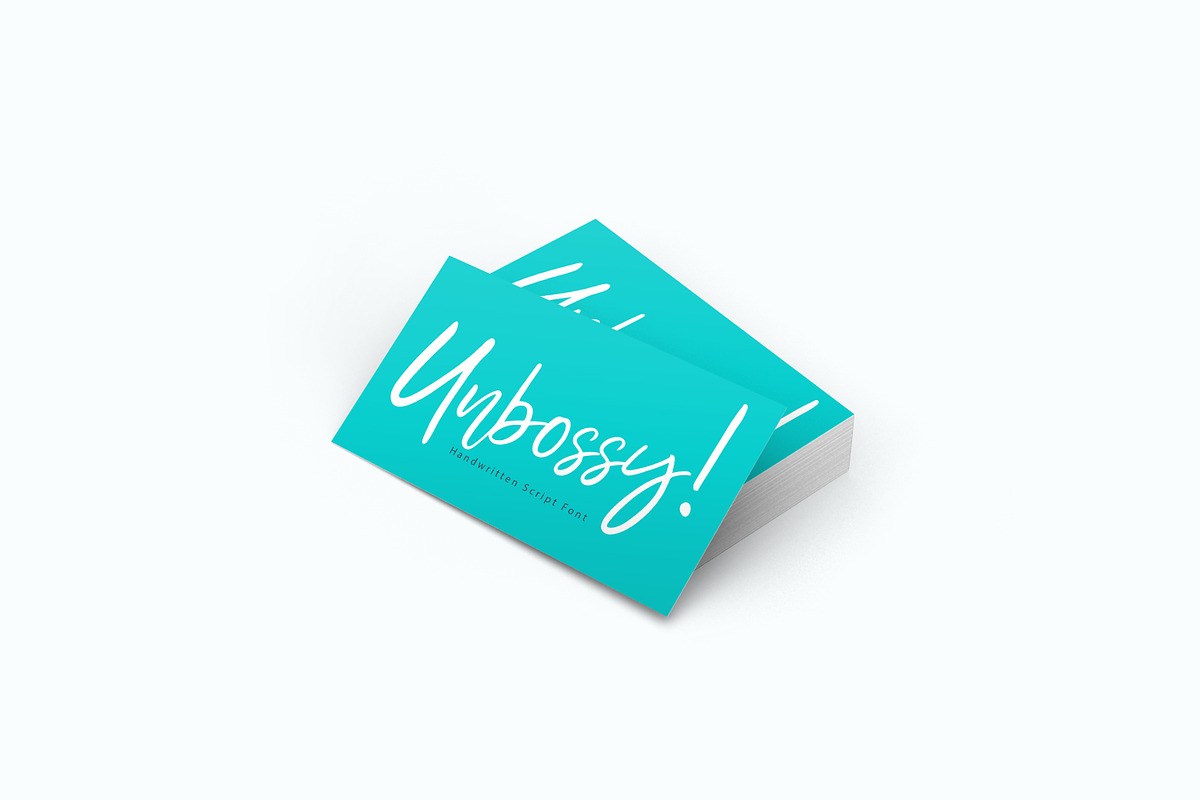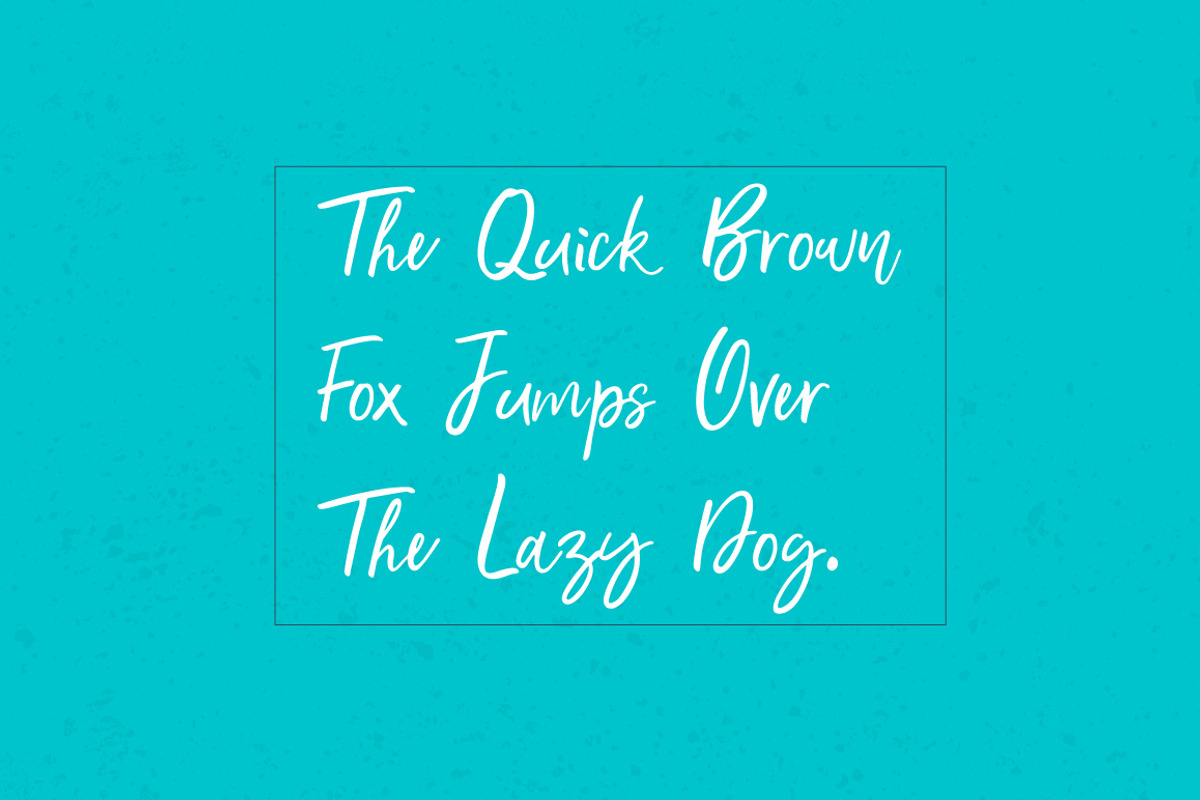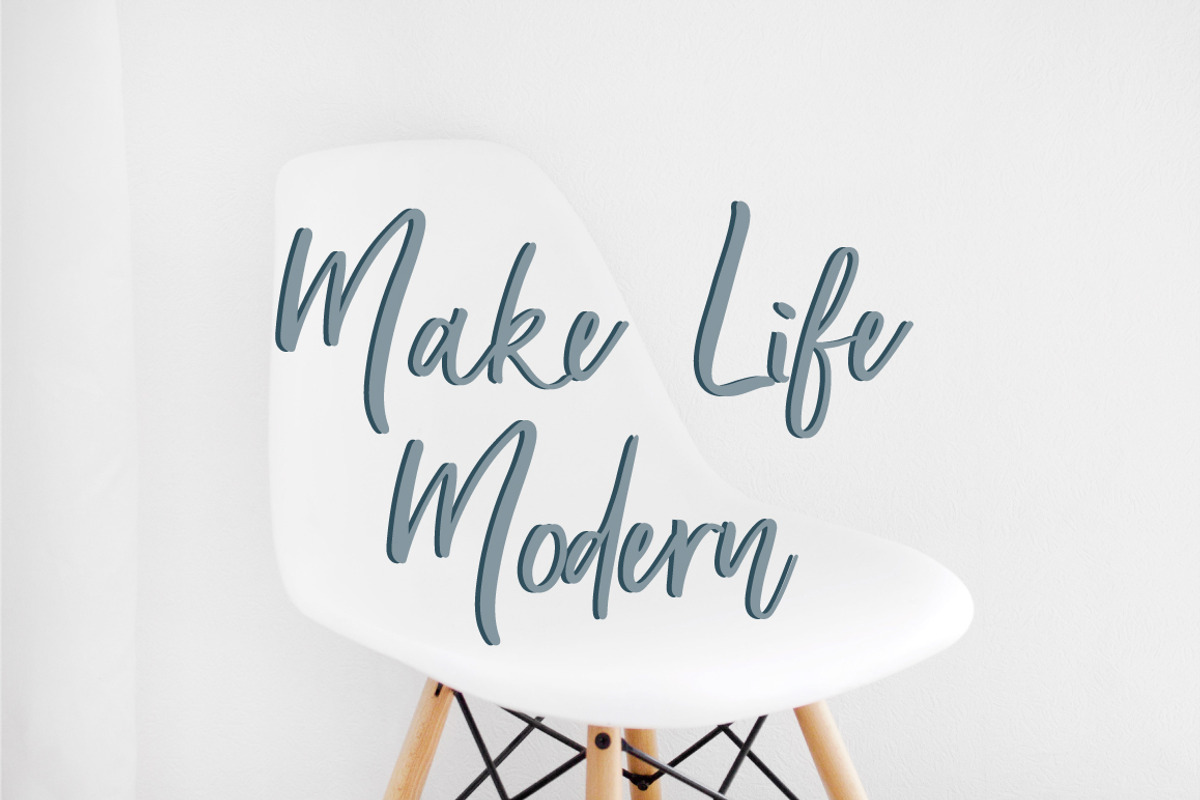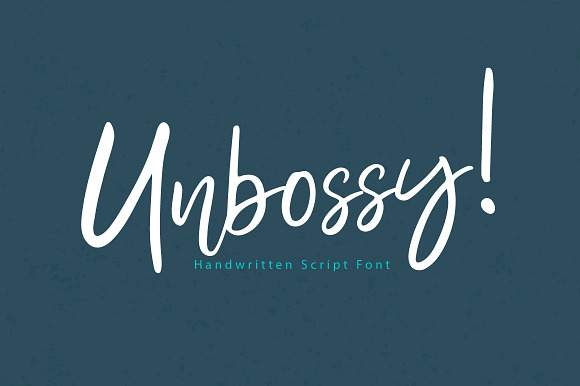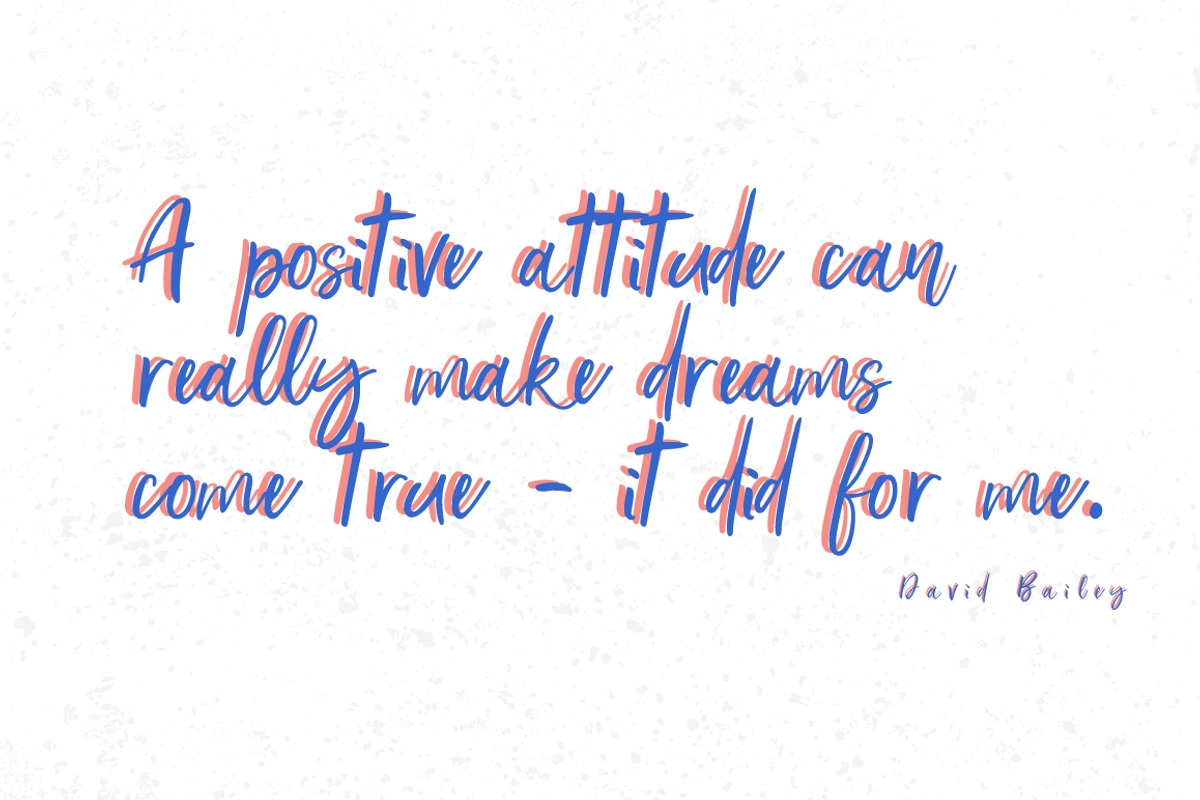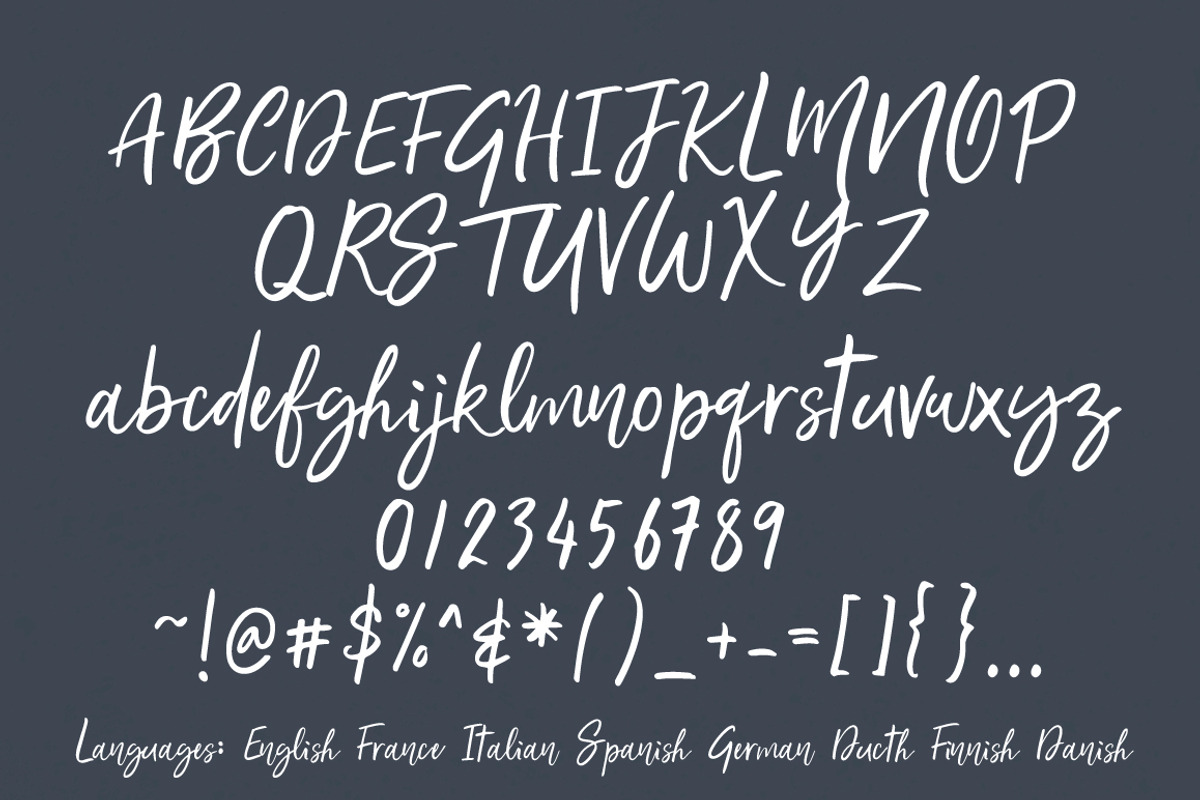
Unbossy | Handdwritten Script Font
It's handwritten script font.
This font a perfect for wedding invitation or your blog. Also with their help, you can create a logo or beautiful frame for your home. Or just use for your small business, book covers, stationery and more.
Include languages: English France Italian Spanish German Ducth Finnish Danish